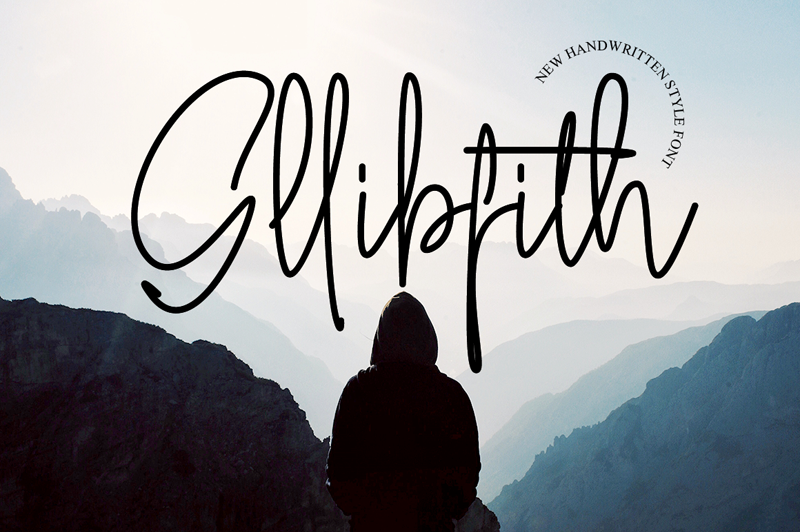
Preview and download Gllibfith Font. Created by Muhammad Wahyudin in Script Handwritten styles with Free for personal use license.
Gllibfith born from handwritting style fonts. Versatile for design poster, logo, branding, label, quote, headline profil, banner, t-shirt design, packaging, magazine, brochure, watermark and many more your amazing work with this fonts. NOTE: This demo font is for PERSONAL USE ONLY! But any donation are very appreciated. Paypal account for donation : https://www.paypal.me/wahyudin1886 Link to purchase commercial license : https://thehungryjpeg.com/product/3628353-gllibfith-handwritten-style-font Please visit our store for more great fonts : https://graphicriver.net/user/letter_deen Follow our instagram : @letterdeen_ Thank you. |